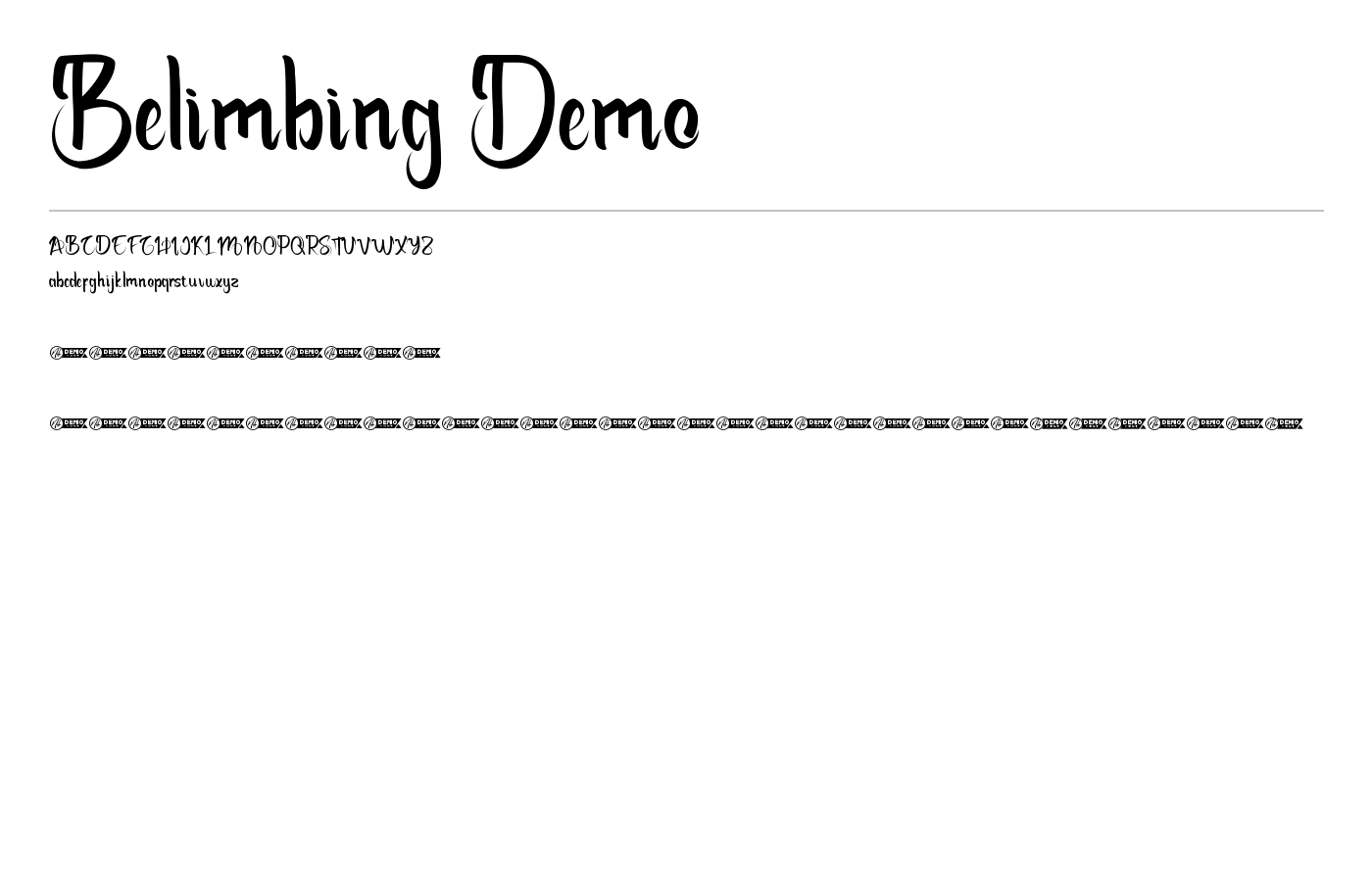
Belimbing Demo is a playful and artistic script font with smooth, rounded strokes and a casual handwritten feel. Its unique letterforms, featuring double-story characters and moderate contrast, make it ideal for creative branding, invitations, and decorative headlines where a warm, approachable style is desired. This font works best in designs that seek a personal and friendly touch while maintaining clear readability.
Belimbing Demo Font
About Belimbing Demo Font
| Font family | Belimbing Demo Font |
| Designer | Shalsha & Suci Anita |